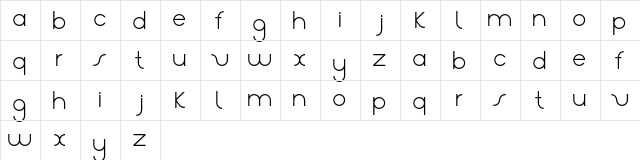
Aster Regular
| Foundry | Paulo R |
| Designer | Paulo R |
Design Context for Aster Typeface
Aster offers clean, dependable letterforms without strong stylistic allegiance, making it a practical choice for designers who need flexibility.